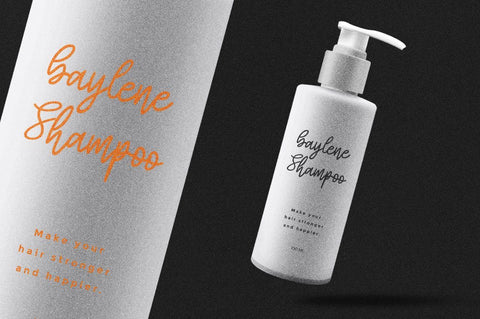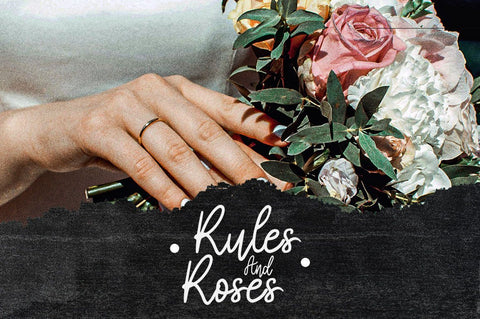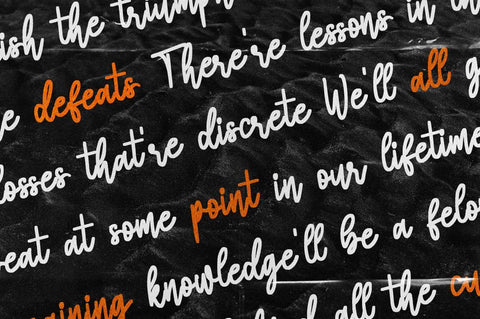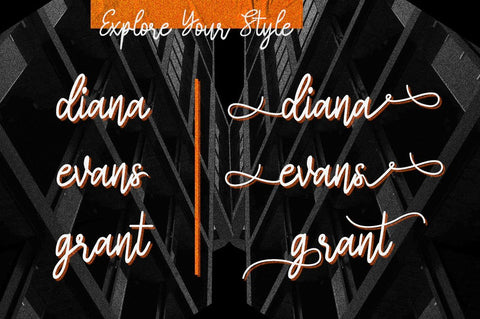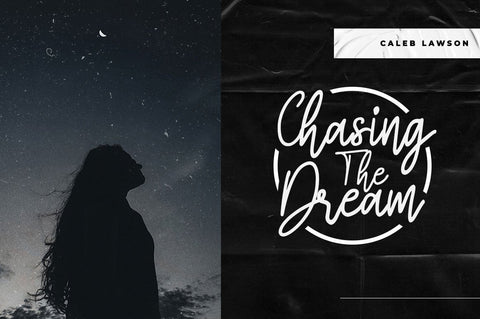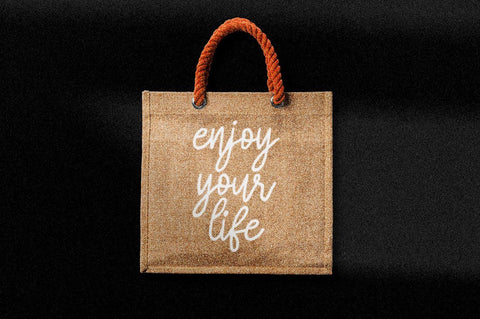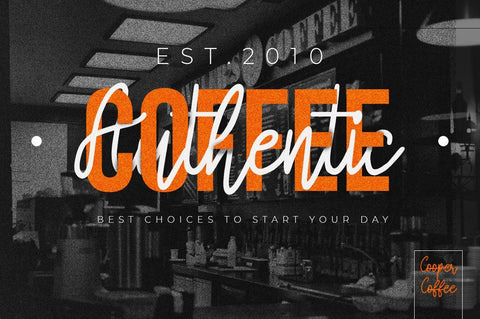
Bulaga - Handwritten Script Font
Bulaga Handwritten Script Font is a stylish and delicate script font. It has a clean, thin and smooth vibe and it will be a hit for any design that you want to add it to.
Bulaga Handwritten Script is PUA encoded which means you can access all of the glyphs and swashes with ease!